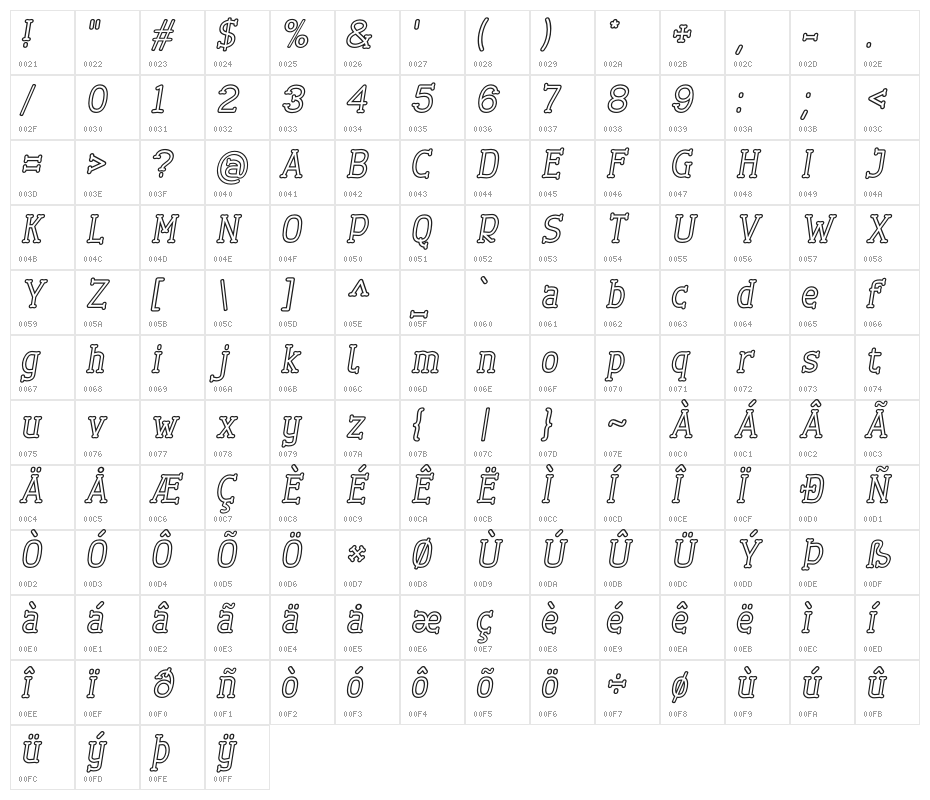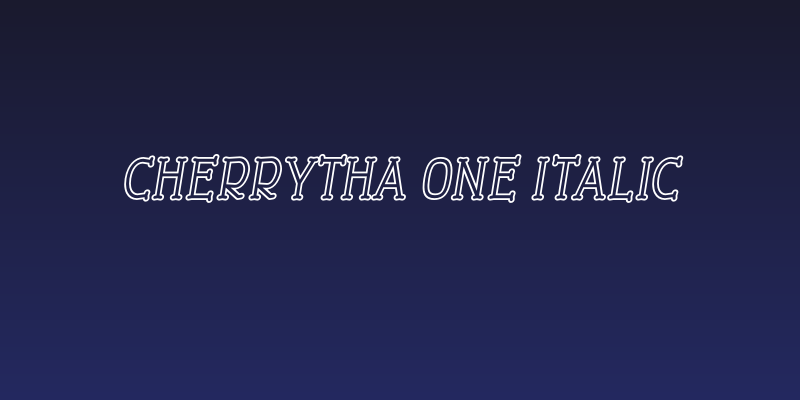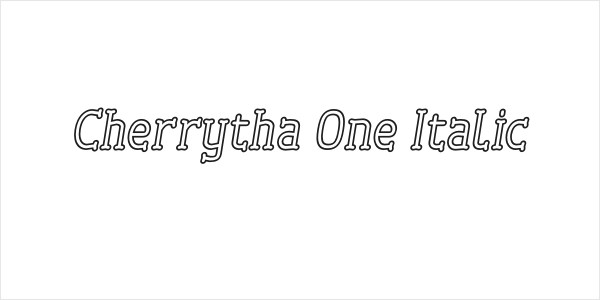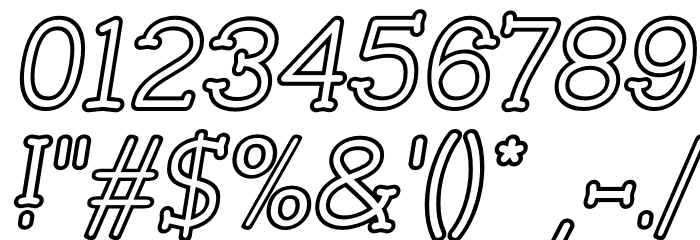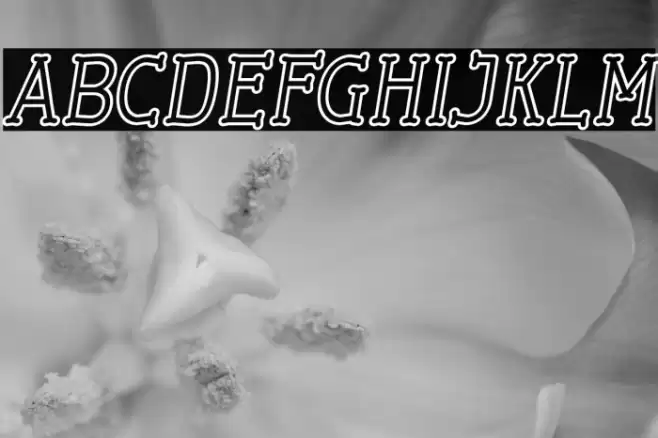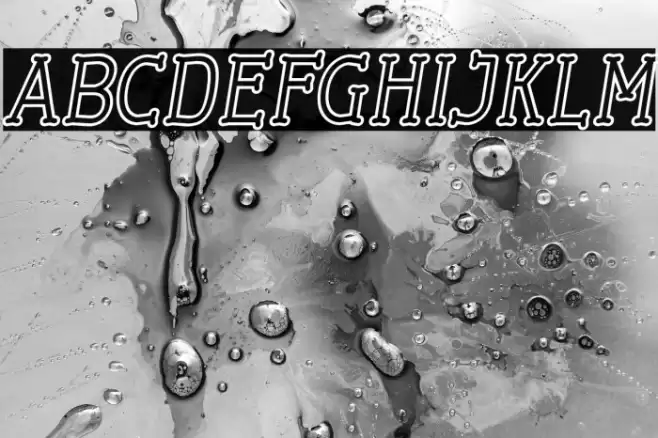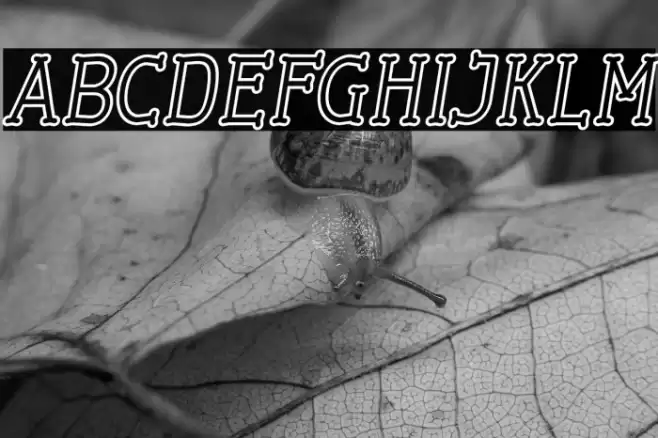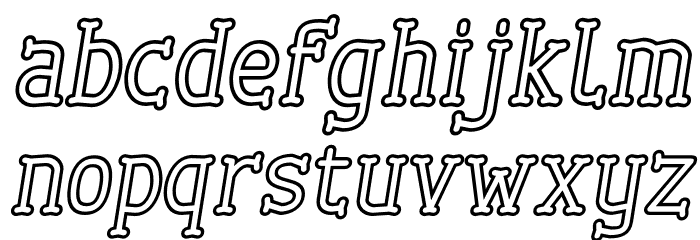
Cherrytha One Italic Font
Cherrytha One Italic Description
This font features a playful and dynamic style with a bold outline that gives it a distinctive look. The characters are slightly slanted, adding a sense of movement and energy. The uppercase and lowercase letters maintain a consistent design, with rounded edges and a smooth flow. The numerals and special characters are designed to match the overall aesthetic, ensuring a cohesive appearance across all text. The font's unique outline effect makes it stand out, making it ideal for creative and eye-catching designs.
| Proposed Projects | Ideal for posters, headlines, branding, and any project needing a bold, creative touch. |